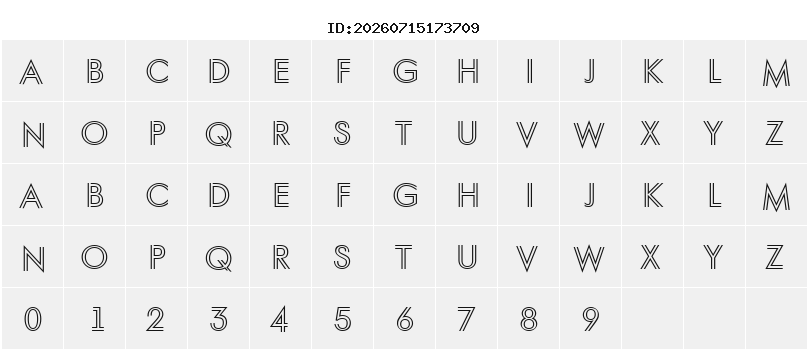
About a_FuturaOrtoTitulInln.ttf
a_FuturaOrtoTitulInln.ttf is a modern, elegant sans-serif font designed for ultimate readability and visual harmony. Perfect for branding, headlines, web design, and print materials.